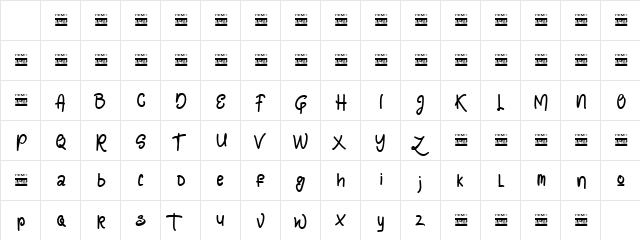
Complete Lazy Quotes Demo Regular glyph index. Displaying only characters natively supported by Lazy Quotes Demo Regular font.
Lazy Quotes Demo is a composed and adaptable typeface that performs quietly and consistently across a wide range of design contexts.